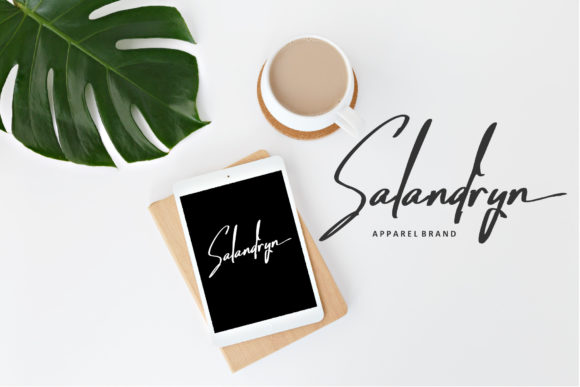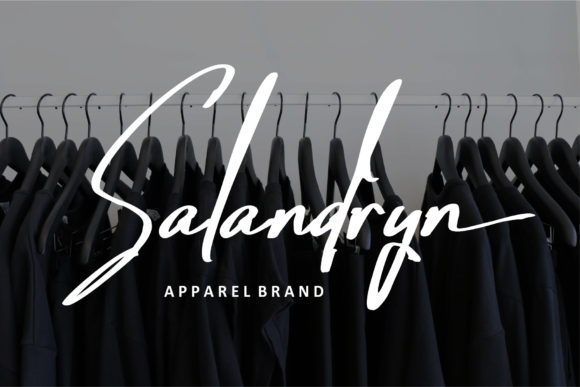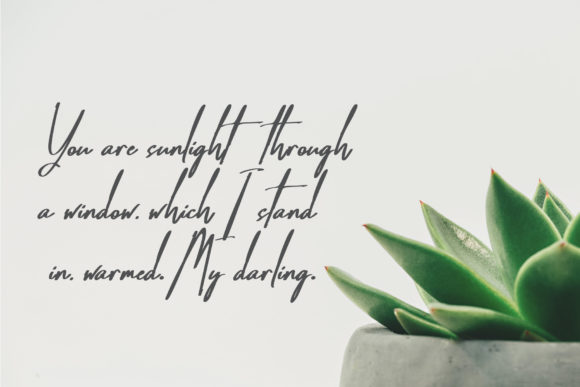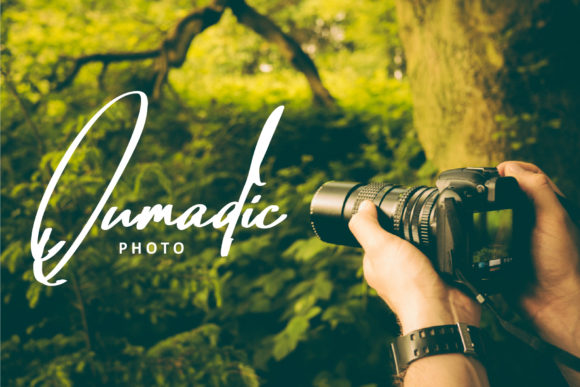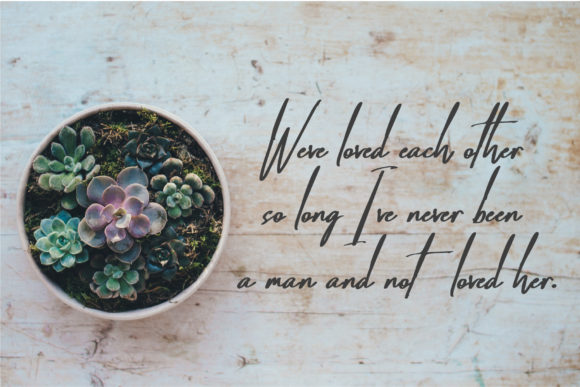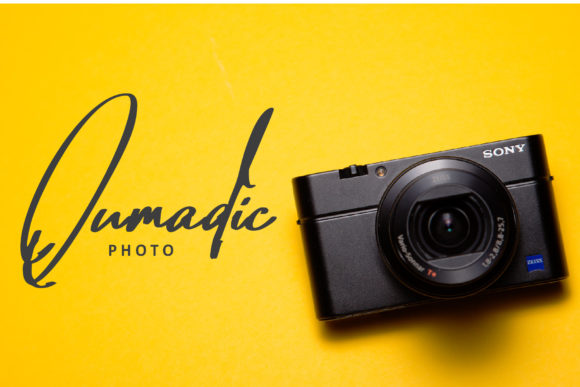
Introduction to Qeflink Font
As designers, we’ve all had those moments where we’re scrolling through social media, and a single post catches our eye. For me, it was a beautifully designed wedding invitation that showcased a delicate yet elegant script font. That’s when I fell in love with the Qeflink Font, a high-quality, thin lettered font that adds a touch of sophistication to any creative project.
Whether you’re a professional designer or a hobbyist, the Qeflink Font is a valuable resource for any design project. Its versatility makes it perfect for a wide range of applications, from gorgeous wedding invitations to beautiful stationery art. And the best part? It’s a free download, making it accessible to designers of all levels.
Key Features of Qeflink Font
- High-quality font with a transparent background, ideal for creative projects and design resources.
- Unique characteristics: Qeflink Font features a modern and elegant design, perfect for headings and titles in your creative project.
Honest Review: Qeflink Font
As a designer, I’m always on the lookout for high-quality fonts that can elevate my creative projects. Recently, I stumbled upon the Qeflink Font, and I’m excited to share my honest review.
What works well: ✨ The Qeflink Font is a beautifully designed font that boasts a transparent background, making it perfect for digital projects. The font is also available for free download, which is a huge plus for designers on a budget. The clean and modern design makes it an excellent choice for a wide range of creative projects.
What doesn’t work well: ⚠️ While the Qeflink Font is a great resource, I did notice that it’s not as versatile as some other fonts on the market. The font is primarily designed for digital use, and it may not be the best choice for print projects. Additionally, the font family is relatively small, which may limit its use in more complex designs.
Overall impression: I’m impressed with the Qeflink Font, and I think it’s a great addition to any designer’s toolkit. While it may have some limitations, its high quality and free download make it an excellent choice for designers working on digital projects.
Qeflink Font is ideal for various design projects, including: